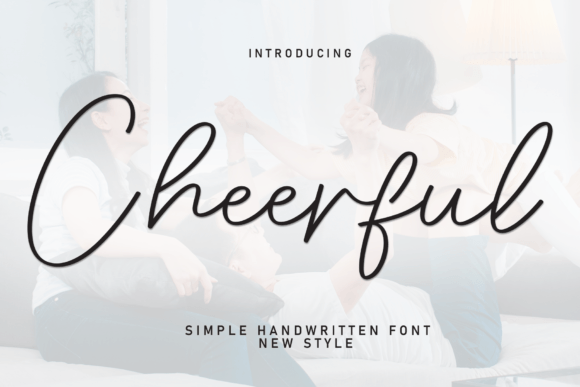
Introducing Cheerful Font, the Epitome of Playfulness and Charm in the World of Fonts
Embrace the allure of Cheerful Font, a captivating handwritten script font family that radiates warmth and friendliness. With its meticulously crafted curves and flowing lines, Cheerful Font effortlessly captures the charm of handwritten notes, bringing a touch of personal connection to your digital creations.
Unleash Your Creativity with a Font Tailored for Versatility
Cheerful Font's versatility knows no bounds, extending its charm across a multitude of design projects. Whether you're crafting heartfelt invitations, designing eye-catching social media posts, or creating whimsical logos, Cheerful Font will seamlessly elevate your work, adding a layer of sophistication that resonates with your audience.
Make an Unforgettable Impression with Every Word You Write
With Cheerful Font as your trusty companion, prepare to captivate your readers with every word you type. Its clean and relaxed style lends an air of approachability and authenticity, making it ideal for crafting personal blogs, heartfelt letters, and captivating marketing materials. Let Cheerful Font be your ambassador, conveying your message with grace and individuality.
Be Bold, Be Original, Be Yourself
Cheerful Font's versatility extends beyond its practical applications, inviting you to explore the depths of your creativity. Experiment with different colors, sizes, and styles to infuse your designs with a unique personality that reflects your brand's essence. Let Cheerful Font be your muse, inspiring you to break free from the ordinary and embrace the extraordinary.
Experience the Joy of Seamless Design
With Cheerful Font, bid farewell to design complexities and embrace a world of effortless creativity. Its intuitive design and compatibility with a wide range of software make it a breeze to incorporate into your projects. Whether you're a seasoned designer or just starting out, Cheerful Font promises a smooth and enjoyable experience, empowering you to bring your visions to life with minimal effort.